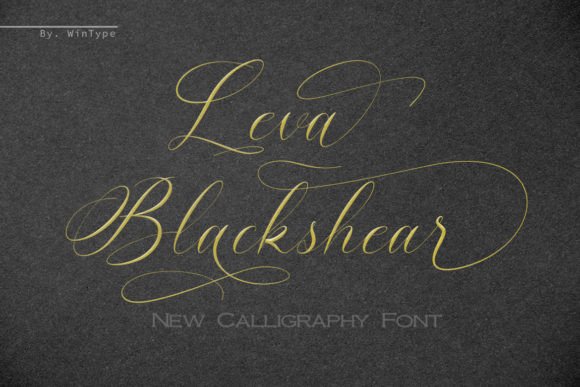
In the realm of digital artistry, where words dance and visual masterpieces come to life, allow us to introduce you to Leva Blackshear Font, a script font of unmatched elegance and allure. Crafted by the ingenious minds at WinType, Leva Blackshear Font is not merely a collection of letters; it's an invitation to embark on a creative journey, to transform your designs into captivating works of art.
With its sleek and modern curves, Leva Blackshear Font exudes a timeless sophistication that transcends trends. Its graceful strokes, reminiscent of a calligrapher's quill, lend an air of refinement and charm to every project it graces. Whether you're crafting logos, invitations, social media graphics, or website designs, Leva Blackshear Font will imbue your creations with an unforgettable allure.
Fall in love with the ravishing style of Leva Blackshear Font, a font that speaks to the heart and captivates the eye. Its versatility knows no bounds, effortlessly adapting to a multitude of design aesthetics, from classic and elegant to contemporary and edgy. Let your imagination run wild as you explore the endless possibilities that await with Leva Blackshear Font.
Unleash the full potential of Leva Blackshear Font with its PUA encoding, granting you effortless access to a treasure trove of glyphs and sweeps. Experiment with a symphony of stylistic alternatives, ligatures, and ornaments, adding depth and personality to your designs. The creative possibilities are limitless, empowering you to craft truly unique and captivating masterpieces.